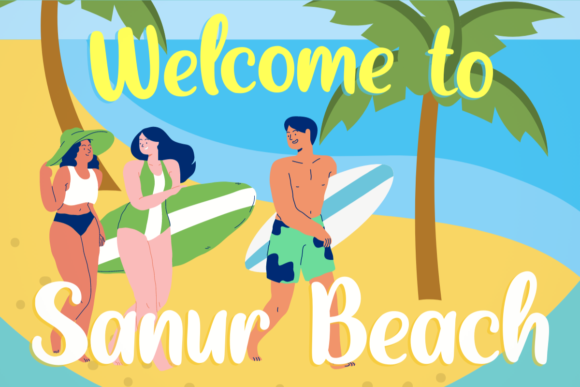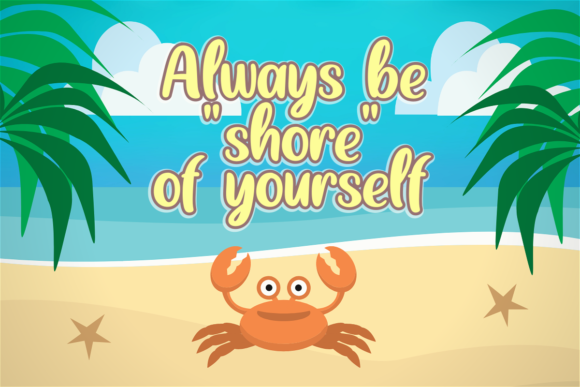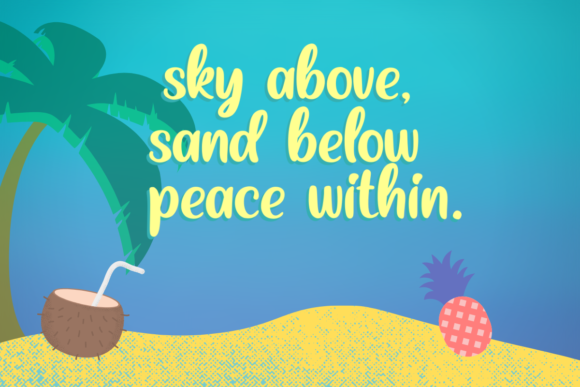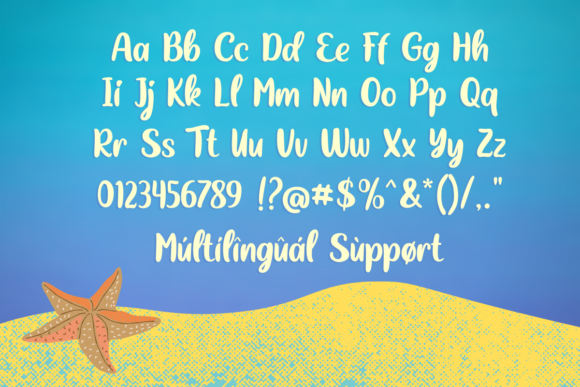
Introducing Friday Beach Font: The Perfect Handwritten Font for Crafty Ideas
Are you a designer or crafter looking for a font that can add a touch of personality to your projects? Look no further than the Friday Beach Font! This simple and cute handwritten font is perfect for almost any crafty idea you have, with easily readable characters that make it a versatile choice for a wide range of applications.
What is Friday Beach Font?
Friday Beach Font is a beautiful handwritten font that is designed to be both simple and cute. Its clean lines and easy-to-read characters make it perfect for use in a variety of projects, from crafting and DIY tutorials to social media graphics and marketing materials.
Key Features of Friday Beach Font
• Handwritten style: Friday Beach Font has a warm and personal touch, with a handwritten style that is perfect for adding a touch of personality to your projects.
• Easily readable characters: The font features clean lines and simple character designs, making it easy to read and understand.
• Versatile: Friday Beach Font is perfect for use in a wide range of projects, from crafting and DIY tutorials to social media graphics and marketing materials.
• Cute and playful: The font has a playful and charming feel, making it perfect for projects that require a touch of whimsy and fun.
Uses for Friday Beach Font
Friday Beach Font is a versatile font that can be used in a wide range of projects, including:
• Crafting and DIY tutorials: Use Friday Beach Font to add a personal touch to your crafting and DIY tutorials, making them more engaging and fun to follow.
• Social media graphics: Add a touch of personality to your social media graphics with Friday Beach Font, making them stand out from the crowd.
• Marketing materials: Use Friday Beach Font in your marketing materials, such as brochures and flyers, to add a touch of warmth and personality.
• Party decorations: Use Friday Beach Font to create custom party decorations, such as banners and signs, that are sure to delight your guests.
Benefits of Using Friday Beach Font
There are many benefits to using Friday Beach Font in your projects, including:
• Easy to read: The font’s clean lines and simple character designs make it easy to read and understand.
• Versatile: Friday Beach Font can be used in a wide range of projects, making it a great addition to your font library.
• Time-saving: With Friday Beach Font, you can quickly and easily create professional-looking projects without spending hours designing custom fonts.
Tips for Using Friday Beach Font
Here are a few tips for using Friday Beach Font in your projects:
• Use it with images: Friday Beach Font pairs well with images, so consider using it with photos or illustrations to add a touch of personality to your projects.
• Experiment with colors: Friday Beach Font looks great in a variety of colors, so don’t be afraid to experiment and find the perfect color for your project.
• Pair it with other fonts: Friday Beach Font can be paired with other fonts to create a unique and interesting look.
Friday Beach Font is a simple and cute handwritten font that is perfect for almost any crafty idea you have. With its easily readable characters and versatile design, it’s a great addition to any font library. Whether you’re a designer or crafter, Friday Beach Font is sure to become a go-to font for all your projects.